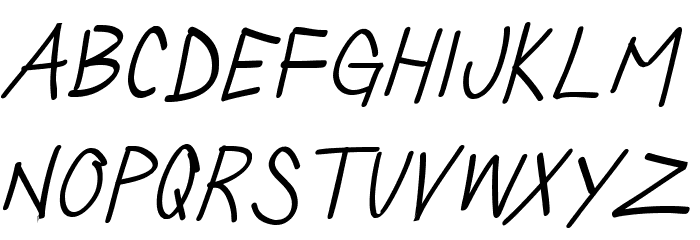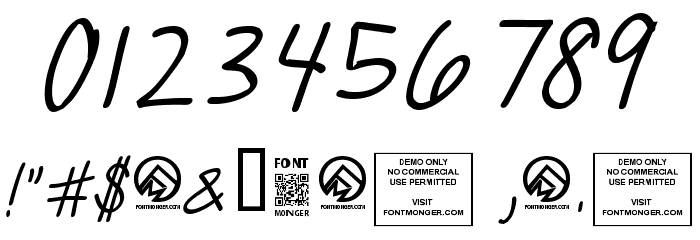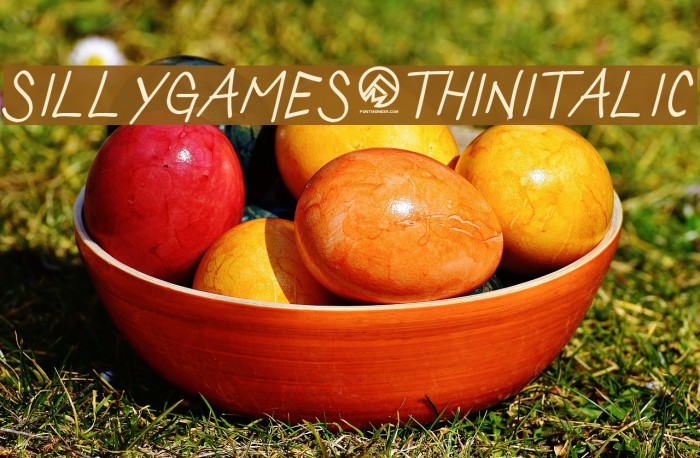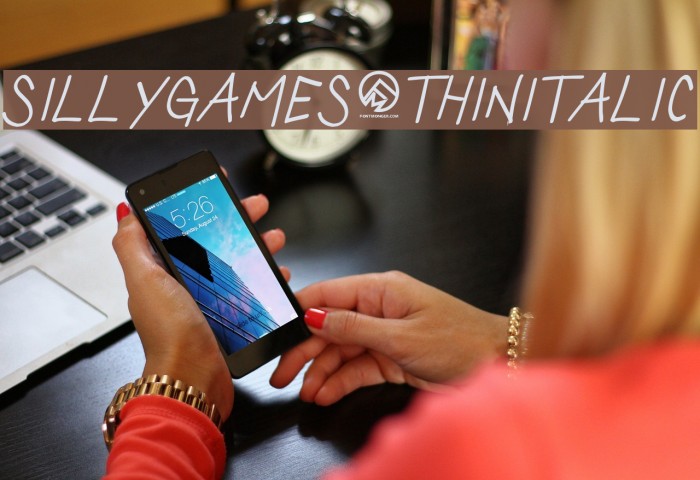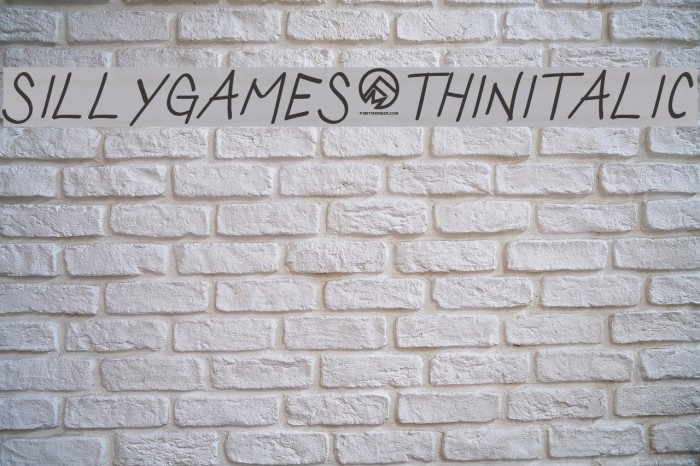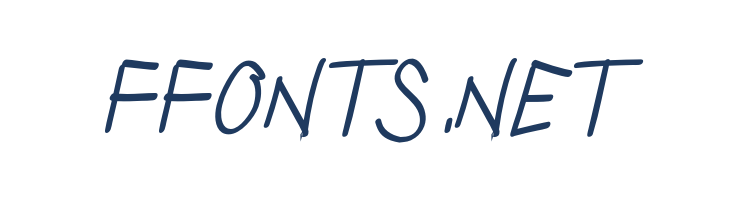
SillyGames-ThinItalic Font
This font features a playful and casual handwritten style with a thin and italicized appearance. The letters are slightly slanted, giving a dynamic and informal look. The strokes are consistent in thickness, maintaining a uniform appearance throughout. The characters have a natural flow, resembling a quick, yet legible handwriting. This style is ideal for conveying a sense of friendliness and approachability. The numbers and special characters maintain the same playful aesthetic, ensuring consistency across all text elements.
A playful, thin, and italic handwritten font with a casual style.
- Proposed Projects: Ideal for greeting cards, personal notes, informal invitations, and playful branding projects.
- Overall Style: Casual
- Use Case: Headlines, Informal text, Personal projects